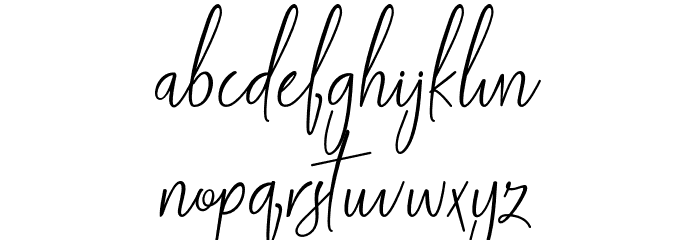
Santiago-bbakey Font
This font exudes a modern and elegant handwritten style, characterized by its flowing and cursive letterforms. The uppercase letters are tall and slender, with a slight slant that adds a dynamic feel. The lowercase letters maintain a consistent flow, enhancing the script-like appearance. Numbers are similarly styled, maintaining the overall aesthetic. Special characters are integrated seamlessly, ensuring versatility in design applications. The strokes are thin, with a medium contrast that gives the font a delicate yet readable quality. This font is perfect for projects that require a personal touch, such as invitations, greeting cards, or branding materials.
A modern, elegant handwritten font with flowing, cursive letterforms.
- Proposed Projects: Ideal for invitations, greeting cards, branding, and personal projects.
- Use Case: Logos, Invitations, Greeting Cards